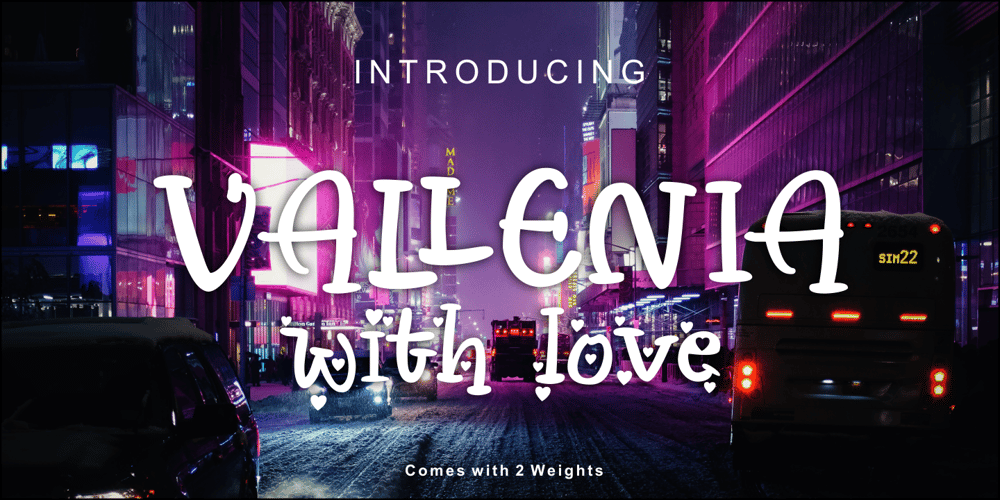
Vallenia Font Family was designed by Joko Setiono and published by Arttype7. Vallenia contains 2 styles and family package options. Vallenia comes with 2 Weights: Vallenia Regular and Vallenia love.Vallenia is perfect for your work with love style.It’s very suitable for t-shirts, the web, love greeting cards, weddings, and many other projects.